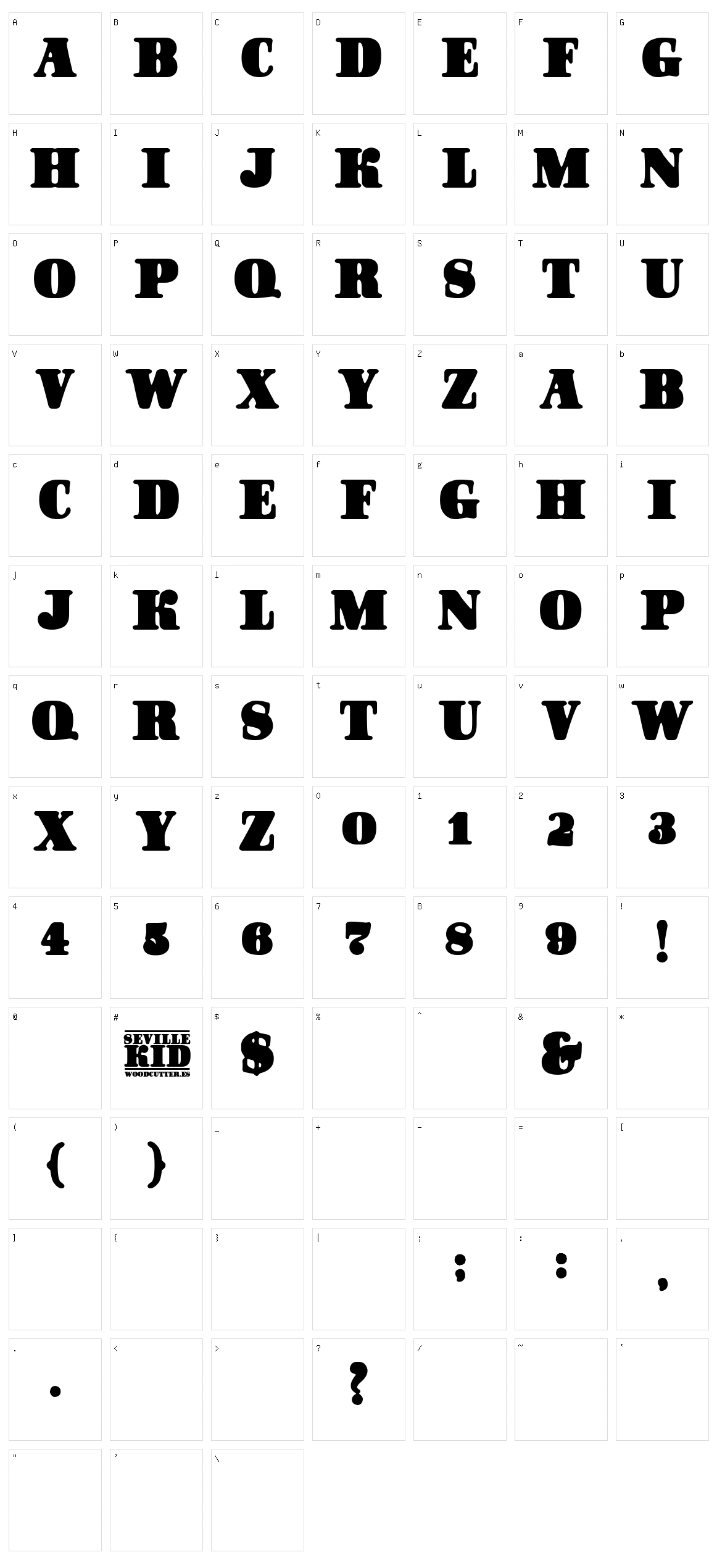
The free font Seville Kid is carefully designed by Woodcutter, showcasing a thoughtful balance of creativity and usability and falls under the Retro font style. When you download the ZIP file, it contains only 21.33 KB of font files, making it lightweight and quick to download. Please review the license details below to understand permitted usage and distribution rights. If license information is not available, we recommend using this font for personal projects only or contacting the author directly for commercial usage permissions.